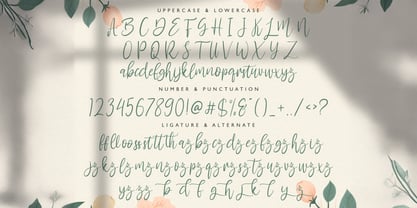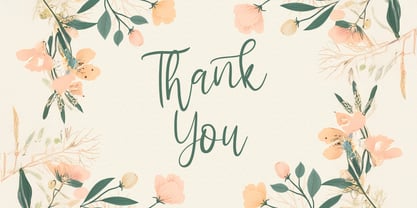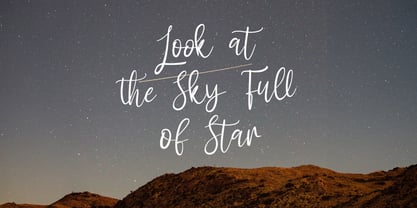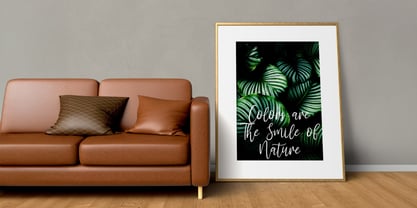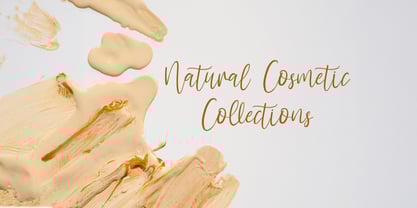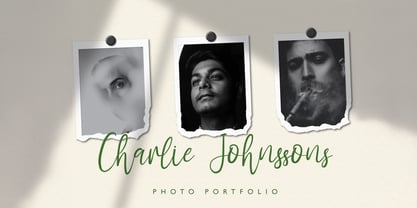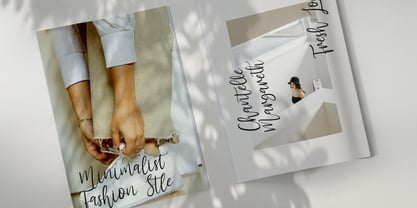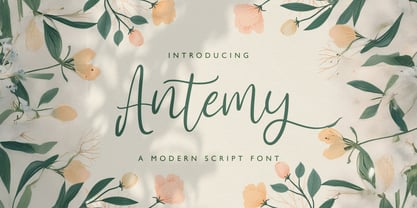
The Antemy Font Family was designed by Virgiawan Listanto and published by Stringlabs Creative Studio. Antemy contains 1 styles.
Antemy is a modern script font that blends elegance with a fresh, contemporary edge. Designed with smooth curves and graceful strokes, Antemy captures the essence of stylish handwriting, perfect for projects that need a touch of sophistication without losing personality.
Designers: Virgiawan Listanto
Publisher: Stringlabs Creative Studio
Foundry: Stringlabs Creative Studio
Design Owner: Stringlabs Creative Studio